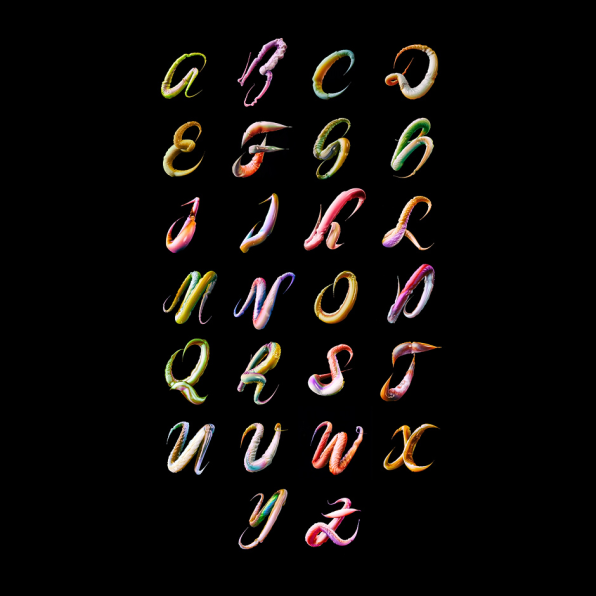
Somewhere, a mad scientist is growing a menagerie of slimy alien creatures by splicing together the genes of squids and insects. But it’s not in some lab below Area 51–it’s on the Mac Pro of Ari Weinkle, who’s been spending his nights and weekends off from Icon Interactive to piece together this shivers-inducing typeface called Feelers.
“I hope that it makes people feel intrigued,” Weinkle says of his work, “and perhaps a bit unsettled.”
The work started innocently enough, as Weinkle toyed around with lights and textures in his 3-D modeling software. A certain combination reminded him of the oozy skin of sea creatures. Inspired, he began modeling a 2-D alphabet in Illustrator, using an old type specimen as his letter rubric, and photos of cephalopods as his organism rubric.
“Finding the balance between creepy and beautiful was certainly one of the tougher parts,” Weinkle says. “It was also challenging working with the simulations and getting everything to feel right.”
He turned the work 3-D, then gave it motion inside Cinema4D. He crafted movement from muscle simulations which he tweaked with hand animation–and indeed, if you look through the entire alphabet in motion, you can see that these letters feel like they have minds of their own, moving less with respect to their individual glyphs, and more out of an organic drive of smooth muscle tissue that your mind can’t begin to deconstruct.
I wouldn’t say it’s the most practical typeface,” Weinkle says. “It’s more of a conceptual experiment.” Not a problem—the best mad scientists’ experiments err towards the conceptual.